The right font choice can make all the difference in transforming your sports team’s branding from ordinary to extraordinary. In the fast-paced and dynamic world of sports, every detail counts, and the font you use for your team’s logo, promotional materials, and merchandise plays a pivotal role in capturing the essence of your team’s spirit and energy. In this article, we will explore the top 20 Canva sports fonts that are sure to make your team stand out. Whether you’re looking for a bold and energetic style or a sleek and modern look, this list has something for every team’s style and vision. So, get ready to enhance your team’s identity and ensure it shines in the competitive sports arena with these carefully selected fonts.
1. Magz
What makes it stand out in Sports font: Magz is a sleek, modern font with clean lines and sharp edges, making it perfect for cutting-edge sports brands and publications. Its contemporary look helps sports teams and events stand out with a professional and stylish aesthetic.
2. Sports World
What makes it stand out in Sports font: As the name suggests, Sports World is designed with sports branding in mind. Its bold, dynamic letters mimic the movement and energy of athletic activities, making it a natural choice for any sports-related content.
3. Princetown
What makes it stand out is Sports font: Princetown, with its blocky, collegiate lettering, is reminiscent of traditional athletic fonts used in varsity letters and team logos. It evokes a sense of nostalgia and time-honored sportsmanship, ideal for teams wanting to highlight tradition and legacy.
4. Mokoto
What makes it stand out in Sports font: Mokoto is an edgy, futuristic font that stands out for its unique geometric shapes and sharp angles. It’s perfect for sports teams looking to project a modern, high-energy image.
5. Quad
What makes it stand out in Sports font: Quad is a robust, square font with a sturdy presence. Its solid, compact letters convey strength and stability, suitable for sports teams emphasizing power and endurance.
6. Black Ops One
What makes it stand out in Sports font: This font has a military, tactical feel, with thick, compact lettering and a commanding presence. Black Ops One is ideal for teams that want to project toughness and resilience.
7. Inndam Extended
What makes it stand out in Sports font: With its extended characters and wide spacing, Inndam Extended offers a modern and spacious look, great for making a bold statement on jerseys, banners, and sports marketing materials.
8. RQND Pro
What makes it stand out in Sports font: RQND Pro features rounded letters with a friendly yet professional appearance. Its approachable style makes it suitable for a wide range of sports, appealing to diverse audiences.
9. Racing Sans One
What makes it stand out in Sports font: Inspired by the fast-paced world of motorsport, Racing Sans One has a streamlined, forward-leaning design that suggests speed and agility, perfect for racing teams and events.
10. Yearbook Solid
What makes it stand out in Sports font: This font has a retro schoolbook charm, suggesting the history and tradition of school sports teams. Its solid, readable style makes it excellent for nostalgia-driven branding and memorabilia.
11. Bungee Shade
What makes it stand out in Sports font: Bungee Shade is a playful, bold font with shaded features that add depth and dimension. Its eye-catching style is perfect for creating fun, energetic sports graphics and logos.
12. Jaturat
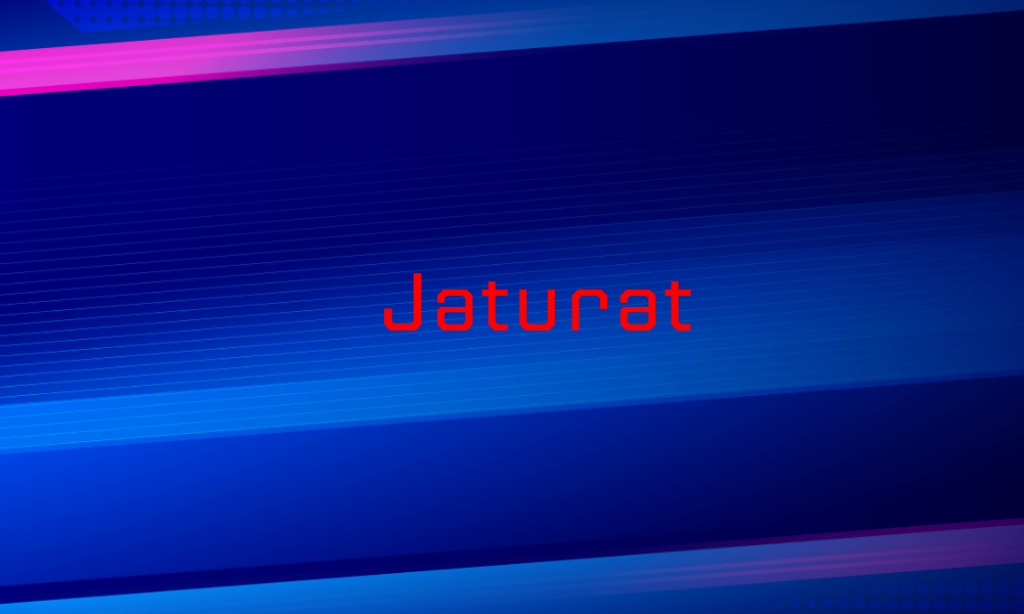
What makes it stand out in Sports font: Jaturat combines sharp angles with curved lines, offering a dynamic and versatile font choice for sports teams looking to blend tradition with modernity.
13. Squartiqa
What makes it stand out in Sports font: Squartiqa, with its square-based characters and clean lines, provides a geometric and structured look, giving a sense of discipline and precision to sports branding.
14. Augustea Open
What makes it stand out in Sports font: Augustea Open has a classic, elegant design with wide-open counters and a Roman flair, ideal for teams and events that want to convey a sense of heritage and excellence.
15. Boxing
What makes it stand out in Sports font: Boxing is a bold, aggressive font that captures the raw energy and intensity of combat sports. Its heavy, forceful characters are perfect for making a strong visual impact.
16. Formula
What makes it stand out in Sports font: Inspired by the high-speed world of Formula 1 racing, Formula has a streamlined, aerodynamic design that embodies the essence of speed and competition.
17. Organic Stencil
What makes it stand out in Sports font: Organic Stencil features a unique cut-out design that gives a sense of action and movement, fitting for sports teams that want a distinctive, dynamic look.
18. Archicoco
What makes it stand out in Sports font: Archicoco has a playful, rounded design that adds a friendly and approachable vibe to sports branding, making it suitable for youth sports and community teams.
19. Lastica
What makes it stand out in Sports font: Lastica offers a flexible, curvy design that mimics the physicality and movement of athletic activities, ideal for sports that emphasize fluidity and grace.
20. Romman
What makes it stand out in Sports font: Romman is a classic and elegant font with a touch of modernity, offering a balanced and professional appearance for sports teams and organizations aiming for a refined image.